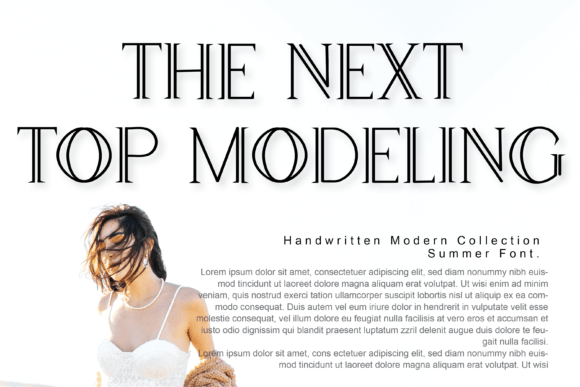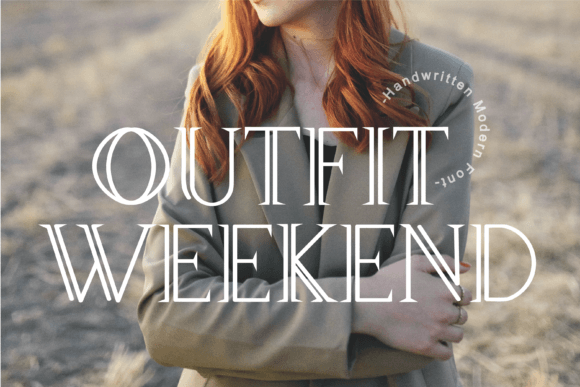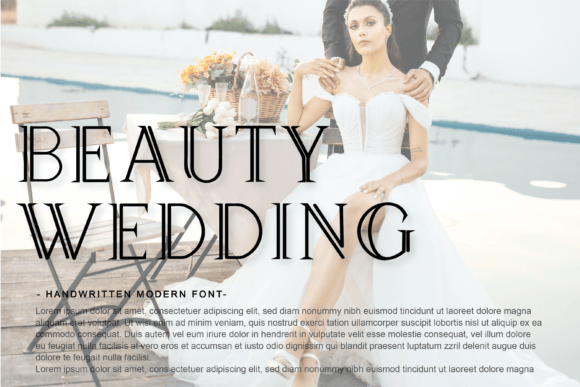
Catalina Font
Catalina is a cool serif font that looks modern,beautiful,and futuristic.This font is perfect for brand names, wedding invitations and many others. Immediately add this font to your creative ideas, and see how your projects become a reality.